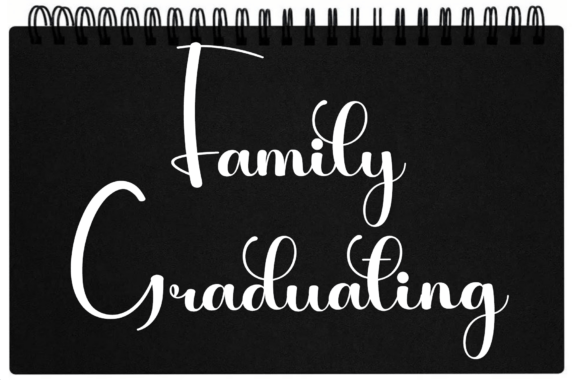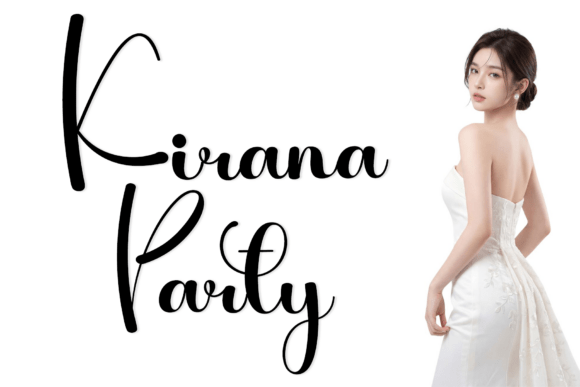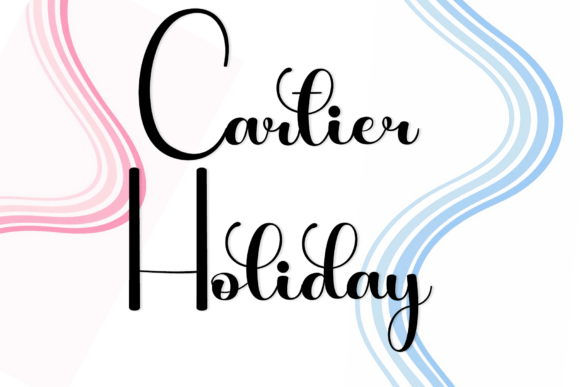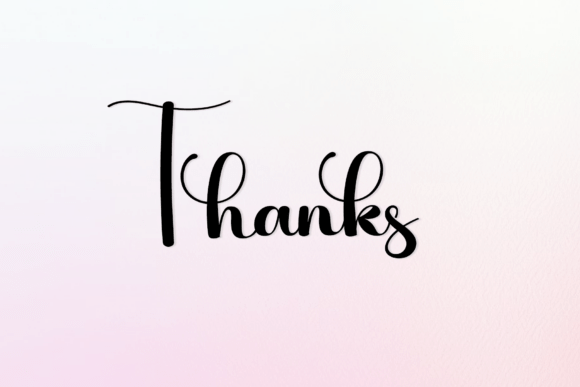
Introducing Beautyline Font: Elevate Your Designs with Timeless Elegance
In the world of design, fonts play a crucial role in conveying messages, evoking emotions, and creating lasting impressions. For designers and crafters seeking a touch of elegance and sophistication, the Beautyline Font is an exceptional choice. This lovely and timeless handwritten font is specifically designed to make your designs stand out, whether you’re creating eye-catching logos, branding materials, or inspirational quotes.
The Unique Charm of Beautyline Font
What sets Beautyline Font apart is its distinctive and beautiful touch. Every letter in this font has been carefully crafted to exude a sense of uniqueness and style, ensuring that your designs come alive with character and personality. The font’s handwritten nature gives it a warm, approachable feel that can instantly connect with your audience on a more personal level.
Ideal for Logos and Branding
When it comes to creating logos and branding materials, the font you choose can significantly impact how your brand is perceived. Beautyline Font, with its elegant and timeless appeal, is perfect for businesses and individuals looking to establish a sophisticated brand identity. Its unique lettering ensures that your logo will stand out from the crowd, making your brand more memorable to potential customers.
Enhance Your Quotes with Beautyline Font
For those who love to create and share inspirational quotes, Beautyline Font offers a stylish and impactful way to present your messages. The font’s beautiful and distinctive letters add an artistic touch to your quotes, making them more engaging and shareable on social media platforms, blogs, or printed materials.
Why Choose Beautyline Font?
- Timeless Appeal: Unlike trendy fonts that may quickly go out of style, Beautyline Font boasts a timeless elegance that will keep your designs looking fresh and relevant for years to come.
- Versatility: This font is incredibly versatile, suitable for a wide range of design projects from logos and branding to quotes and more.
- Unique Lettering: Each letter in Beautyline Font has been uniquely designed, ensuring that your designs have a one-of-a-kind look.
- Easy to Read: Despite its elegant and artistic nature, Beautyline Font remains easy to read, making it practical for both digital and print designs.
Tips for Using Beautyline Font
To make the most of Beautyline Font, consider the following tips:
- Pair with Complementary Fonts: For maximum impact, pair Beautyline Font with simpler fonts for contrast, especially in designs that require a hierarchy of information.
- Adjust Letter Spacing: Play around with letter spacing to enhance the natural flow and rhythm of the font, especially in longer texts.
- Experiment with Colors: Don’t be afraid to experiment with different colors and gradients to find the perfect match that enhances the beauty of the font.
Beautyline Font is more than just a font; it’s a design element that can elevate your projects with its timeless elegance and unique charm. Whether you’re a designer looking to create stunning logos and branding materials or a crafter aiming to add a touch of sophistication to your quotes, Beautyline Font is an exceptional choice. Its versatility, readability, and beautiful lettering make it a valuable addition to any designer’s toolkit. So, why settle for ordinary when you can create something truly extraordinary with Beautyline Font?
Embrace the beauty and uniqueness of Beautyline Font in your next design project and discover how it can transform your creations into timeless pieces of art.